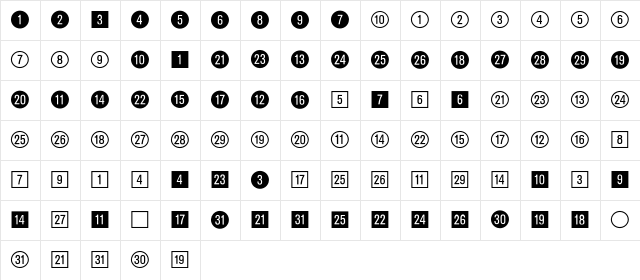
Ziffern im Kreis und Quadrat BQ Regular
Design Context for Ziffern im Kreis und Quadrat BQ
Ziffern im Kreis und Quadrat BQ is a composed and adaptable typeface that performs quietly and consistently across a wide range of design contexts.